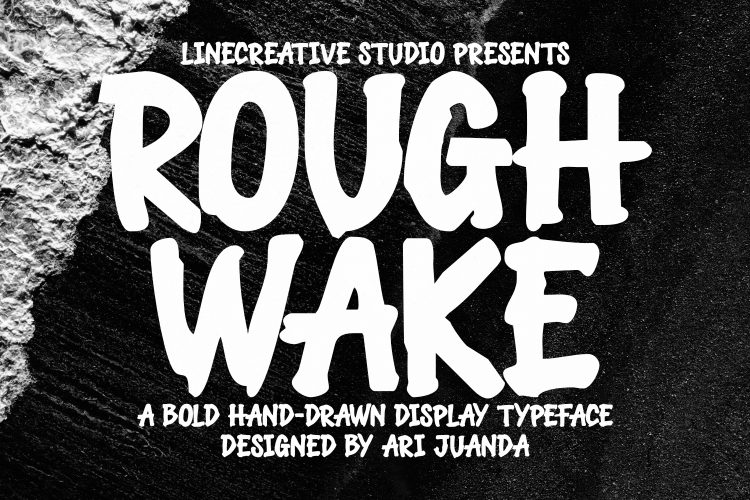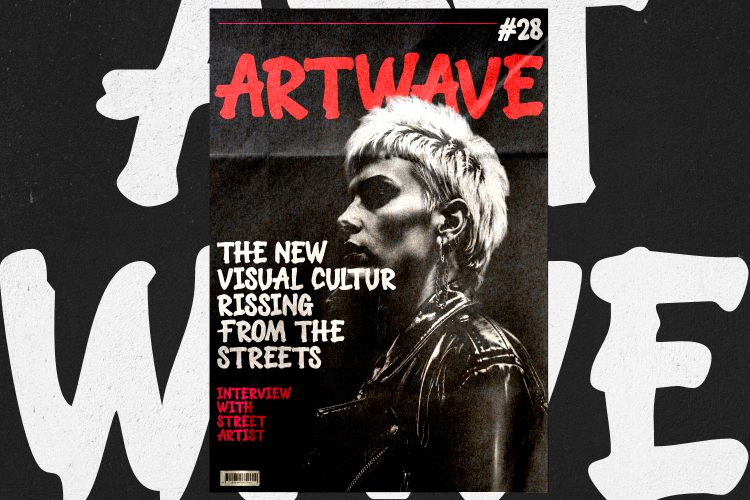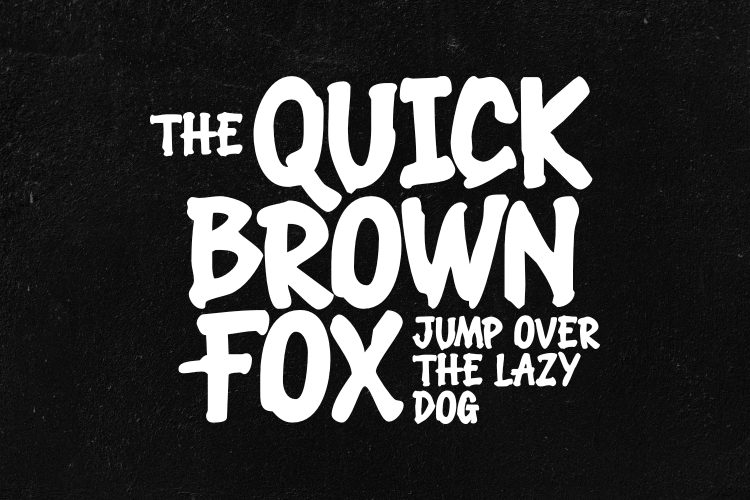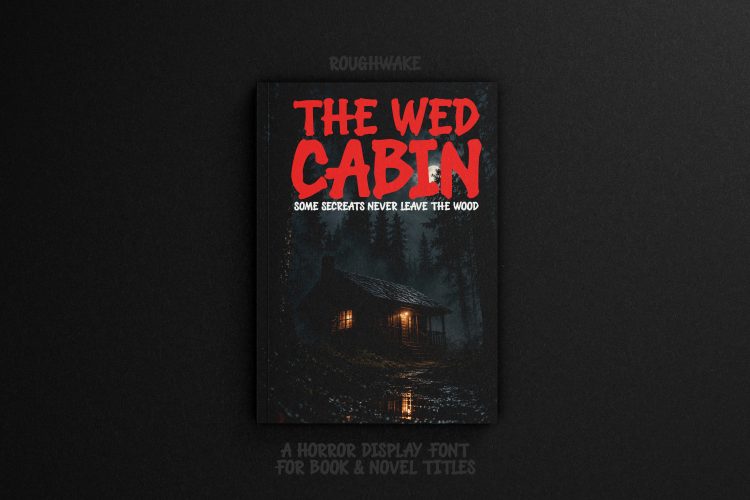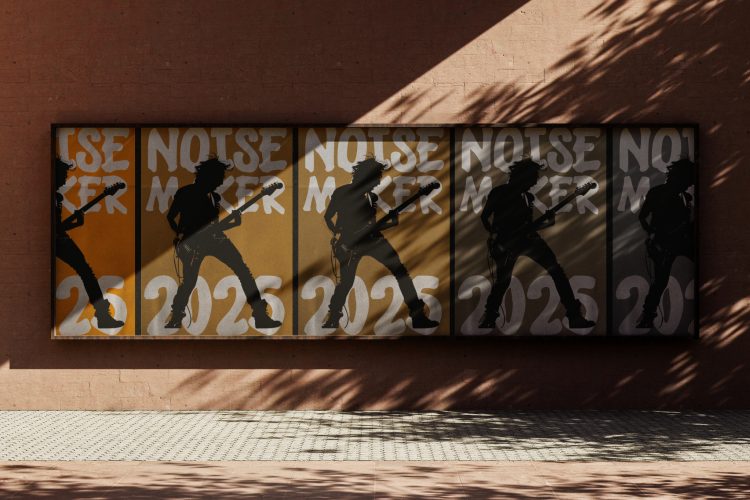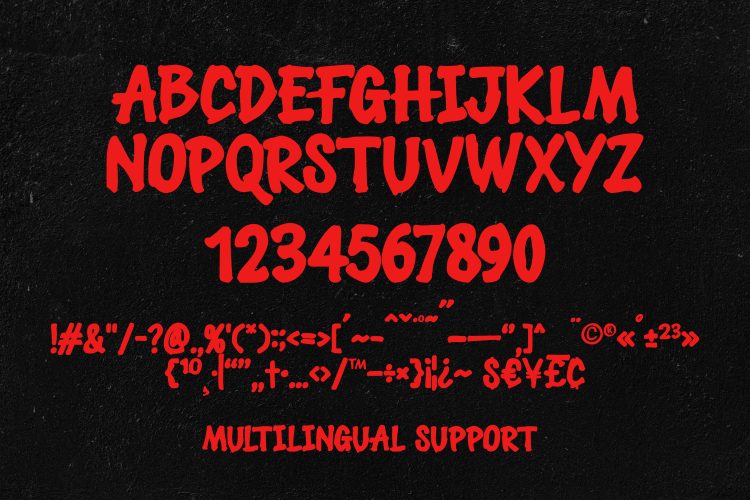
ROUGHWAKE – A Bold Hand-Drawn Display Typeface
Roughwake Display Font is a bold hand-drawn display typeface made for designs that need strong personality, raw energy, and an unmistakably handmade character. With chunky letterforms, rough contours, organic shapes, and naturally irregular details, Roughwake brings an expressive and authentic feeling to every word.
Designed to stand out, Roughwake has a distinctive visual personality that feels bold, rugged, playful, rebellious, and adventurous. Its hand-drawn appearance gives typography a more human quality, while its heavy forms provide the visual strength needed for impactful headlines and large-scale designs.
Roughwake is not limited to one particular style. Depending on the imagery, layout, and supporting elements, it can feel wild and adventurous, nostalgic and vintage, or dark and mysterious. This versatility makes it a strong choice for designers looking for a display typeface that can tell different visual stories while keeping its recognizable handcrafted identity.
Roughwake Display Font – A Bold Hand-Drawn Personality
The defining characteristic of the Roughwake Display Font is its bold hand-drawn construction. Rather than relying on perfectly geometric forms, Roughwake embraces irregular shapes and rough details that create a natural handmade appearance.
The chunky letterforms give the typeface a strong visual presence, while the uneven contours add character and movement. This combination helps Roughwake feel expressive without losing its bold impact.
At large sizes, the personality of the lettering becomes even more noticeable. This makes it particularly effective for titles, headlines, logos, posters, book covers, apparel graphics, and other applications where typography needs to become a major part of the visual composition.
Roughwake works especially well when you want your lettering to feel raw, authentic, energetic, and memorablerather than clean, formal, or overly polished.
Perfect for Adventure & Outdoor Designs
Roughwake naturally fits creative projects inspired by exploration and the outdoors.
Its rugged and organic appearance works beautifully with mountains, forests, camping, hiking, wilderness, exploration, and outdoor lifestyle themes. Use it for adventure posters, camping merchandise, outdoor branding, mountain graphics, travel artwork, or rugged apparel designs.
Combine the typeface with vintage illustrations, maps, badges, natural textures, photography, or distressed graphic elements to create a strong outdoor-inspired visual identity.
Whether you’re creating a fictional expedition, an outdoor clothing graphic, or a poster inspired by the wilderness, Roughwake can give the typography a sense of adventure and handcrafted authenticity.
Roughwake for Horror, Thriller & Dark Artwork
Roughwake also has a darker side.
Its rough, irregular letterforms can work particularly well for horror book covers, thriller titles, dark adventure artwork, survival stories, movie posters, and mysterious visual compositions.
When paired with dark photography, foggy forests, abandoned cabins, shadows, old textures, or cinematic imagery, the typeface can create a more mysterious and dramatic atmosphere.
This ability to shift between adventurous and darker moods makes Roughwake useful for projects where typography needs to contribute strongly to the overall storytelling.
Perfect For
- Book Covers & Novel Titles
- Horror & Thriller Artwork
- Movie & Film Titles
- Adventure Posters
- Outdoor Branding
- Camping & Hiking Graphics
- T-Shirt & Apparel Designs
- Streetwear Graphics
- Logo & Badge Designs
- Vintage-Inspired Artwork
- Posters & Headlines
- Merchandise
- Album Artwork
- Social Media Graphics
- Game & Entertainment Titles
Why You’ll Love Roughwake
Roughwake is made to make words feel alive.
Its bold structure immediately captures attention, while its hand-drawn appearance gives your designs a more personal and expressive quality. The rough organic details prevent the lettering from feeling sterile, helping your typography look more authentic and visually distinctive.
Roughwake is especially useful when the type itself needs to become part of the artwork. Instead of simply communicating a message, the lettering can help establish the mood, attitude, and story of the design.
Use it for a rugged adventure poster, a horror novel cover, a streetwear graphic, an outdoor brand, a cinematic title, or a bold merchandise design. Roughwake gives each application a handcrafted visual voice while maintaining its strong display character.
For designers who enjoy typography with personality, Roughwake offers a combination of boldness, roughness, organic shapes, and hand-drawn character that can bring more energy to creative projects.
From wild landscapes and outdoor adventures to mysterious stories and dark cinematic artwork, Roughwake is built for designs that want to feel different, expressive, and full of character.
ROUGHWAKE
A Bold Hand-Drawn Display Typeface
Raw letters. Bold character. Endless stories.